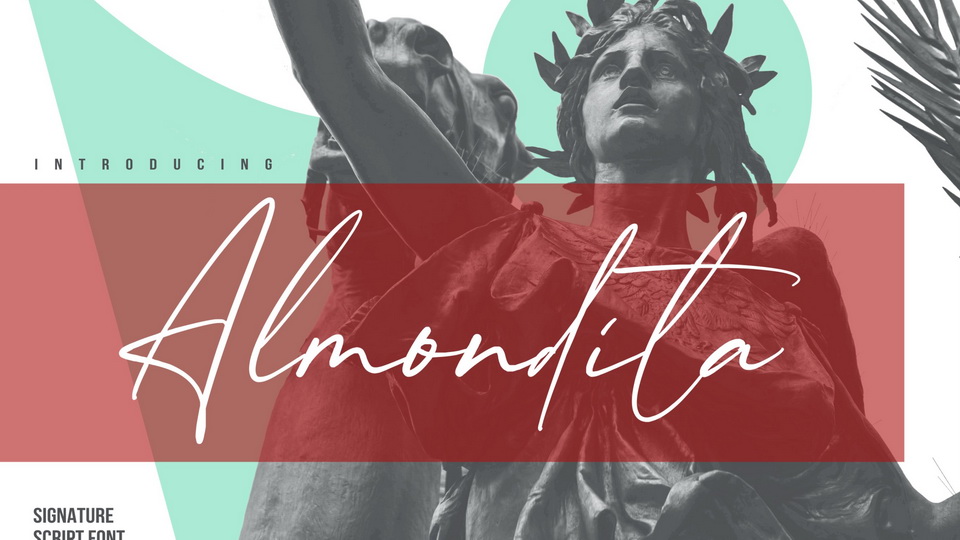
Download Almondita font, a trendy signature style handwritten script. Almondita is suitable for personal branding, magazine, social media, or just used to express words over the background.